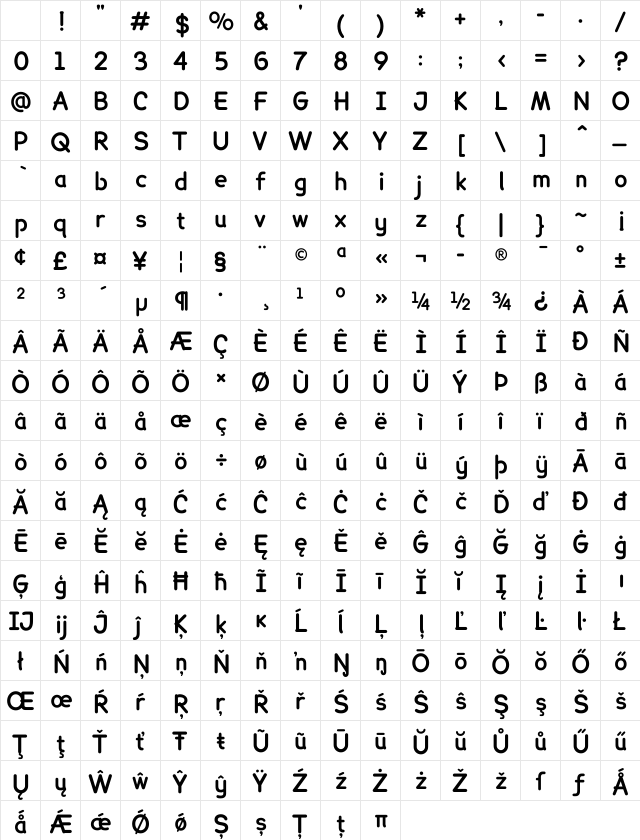
Complete Lexie Readable Bold glyph index. Displaying only characters natively supported by Lexie Readable Bold font.
Lexie Readable is a composed and adaptable typeface that performs quietly and consistently across a wide range of design contexts. Its bold stroke weight gives it real presence on the page.